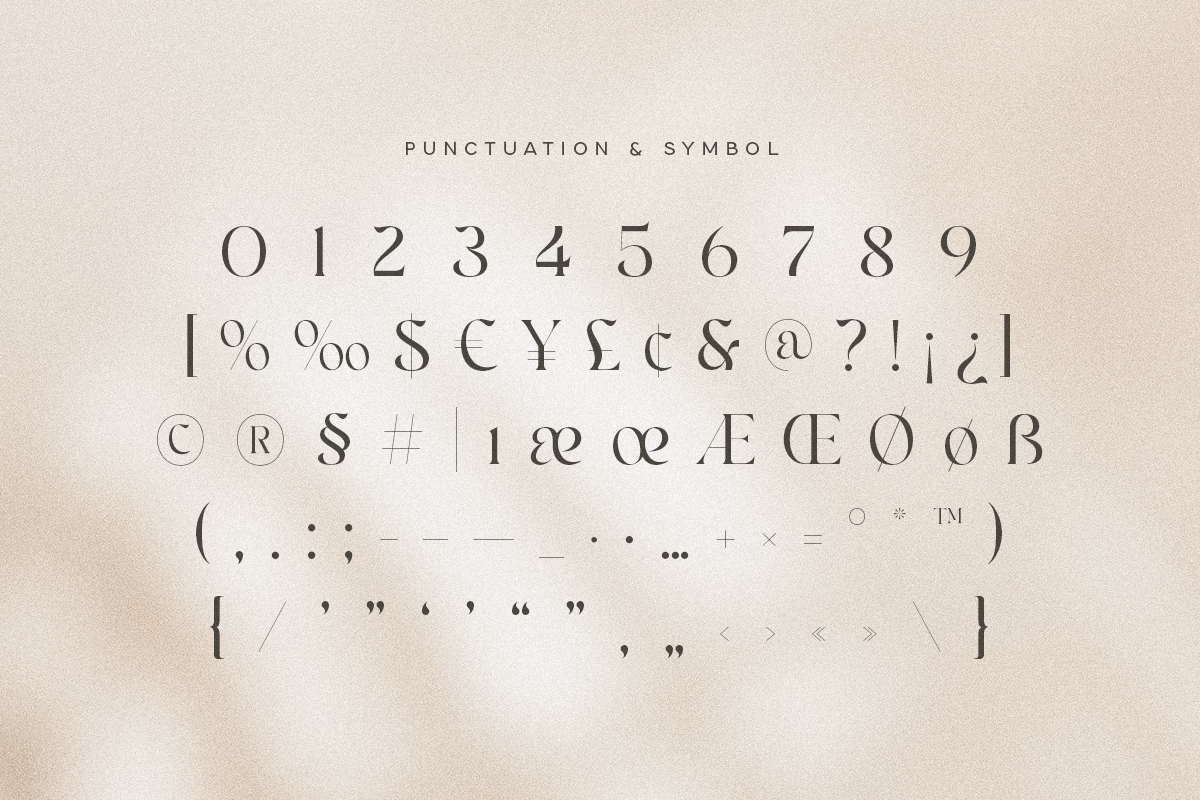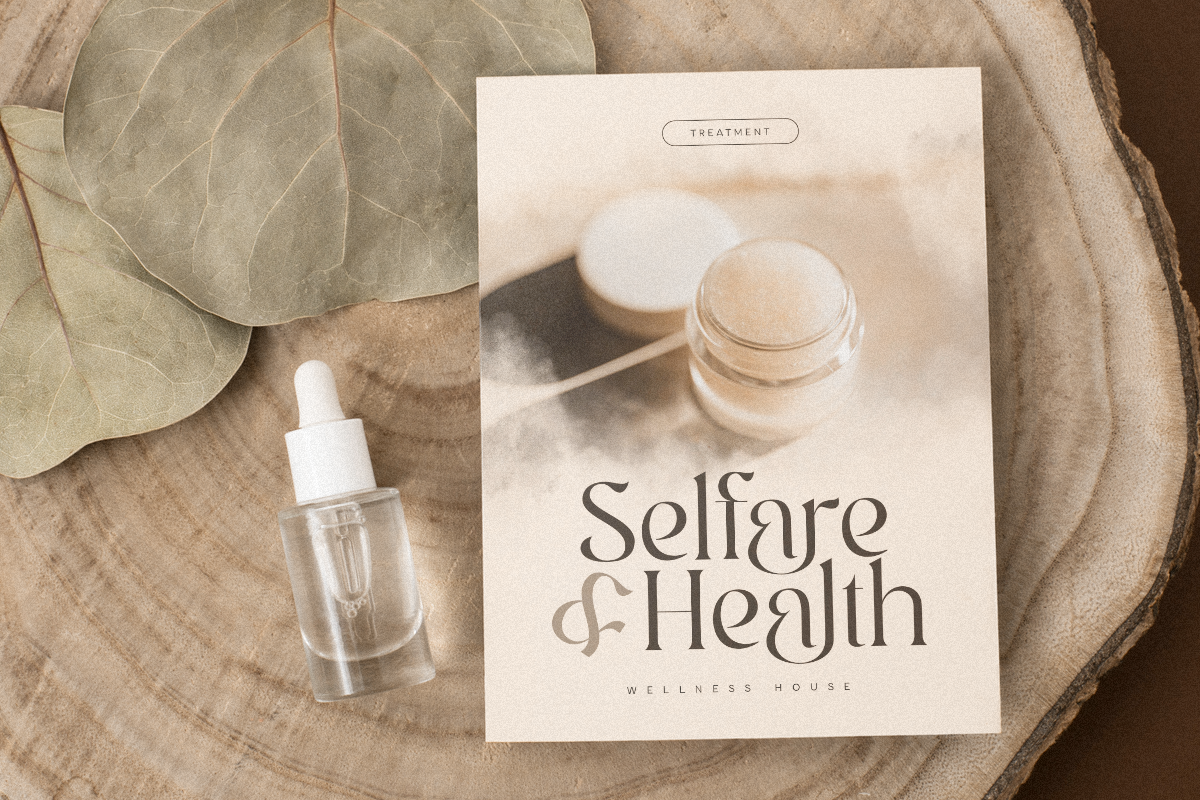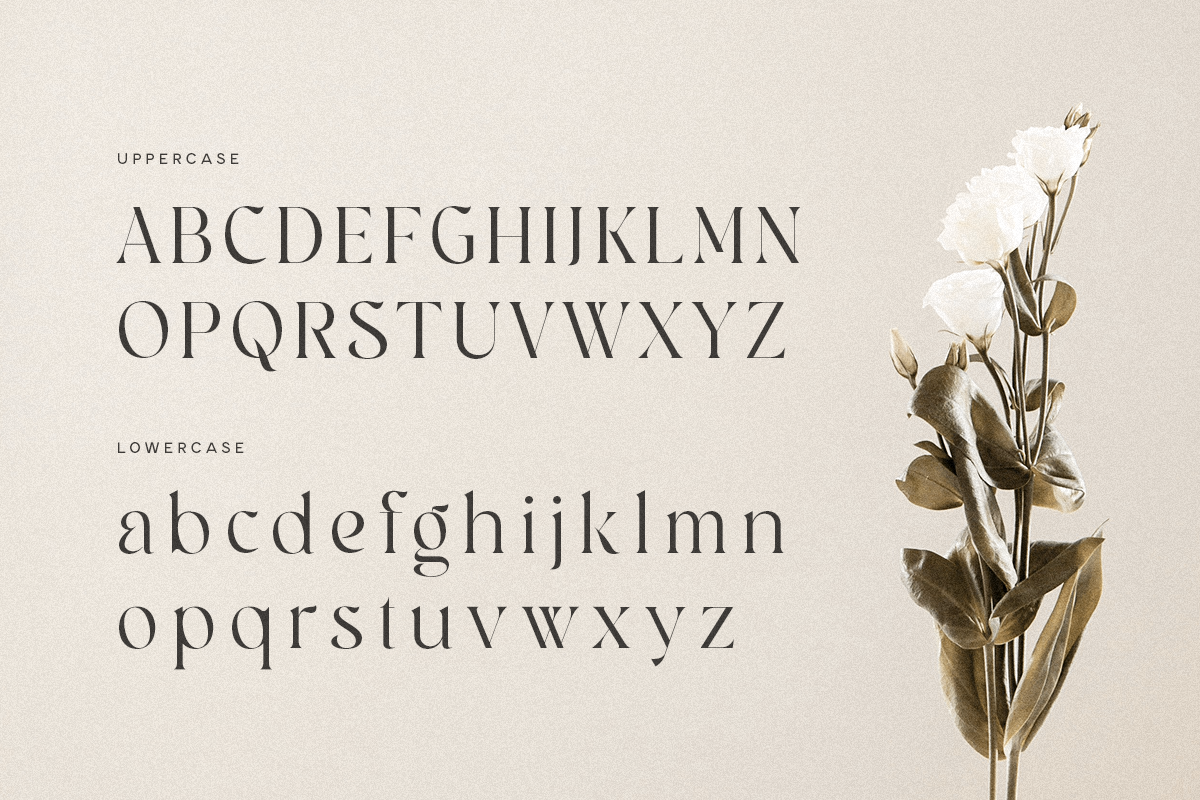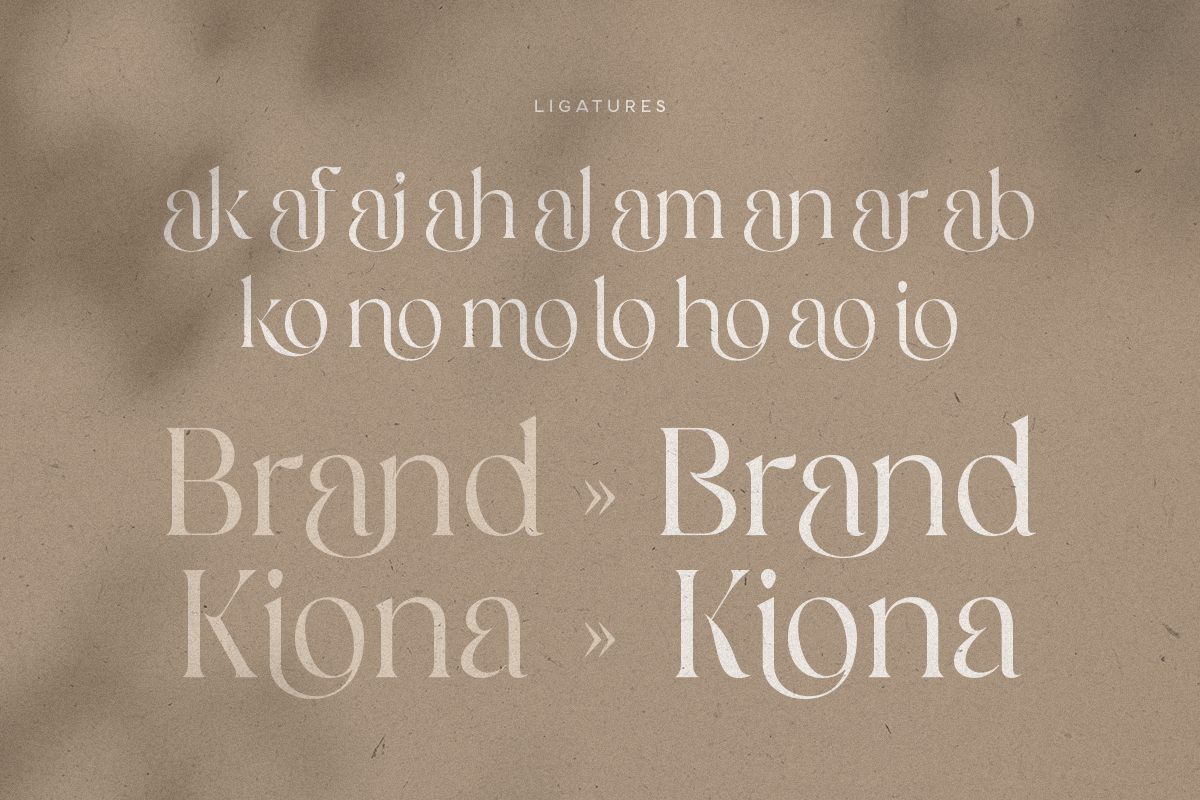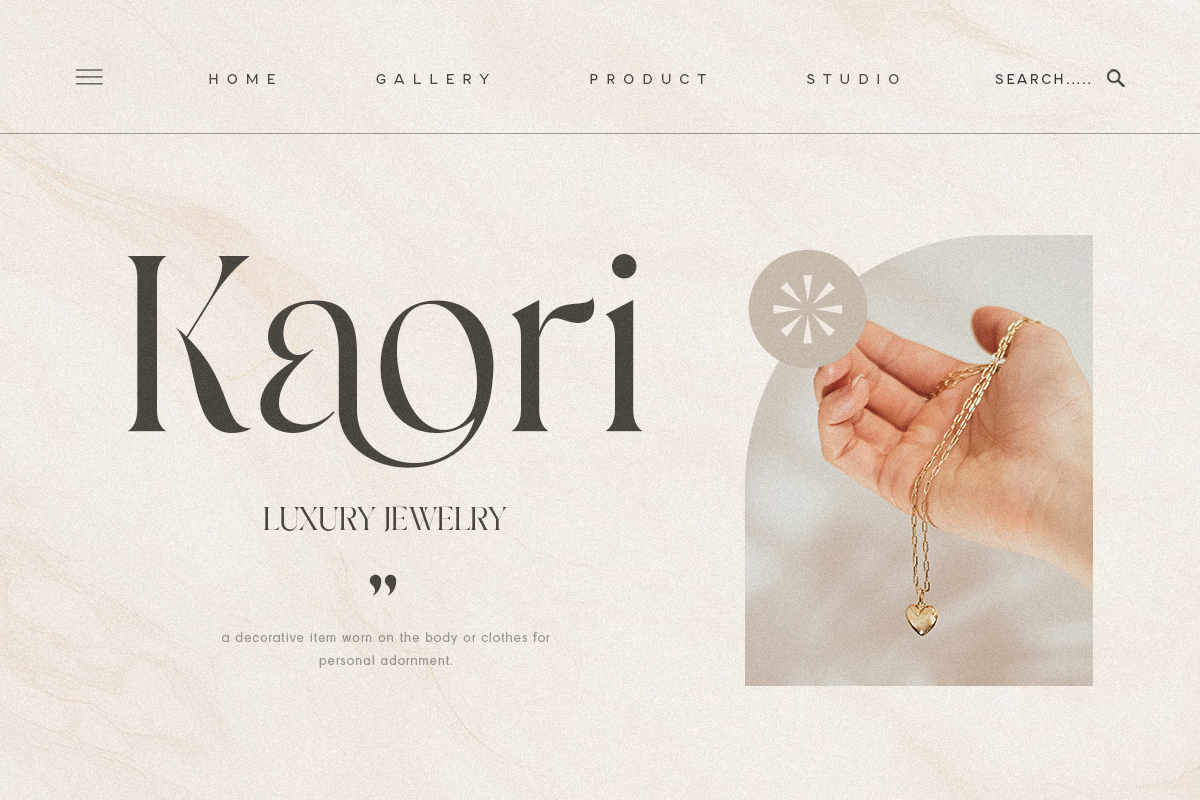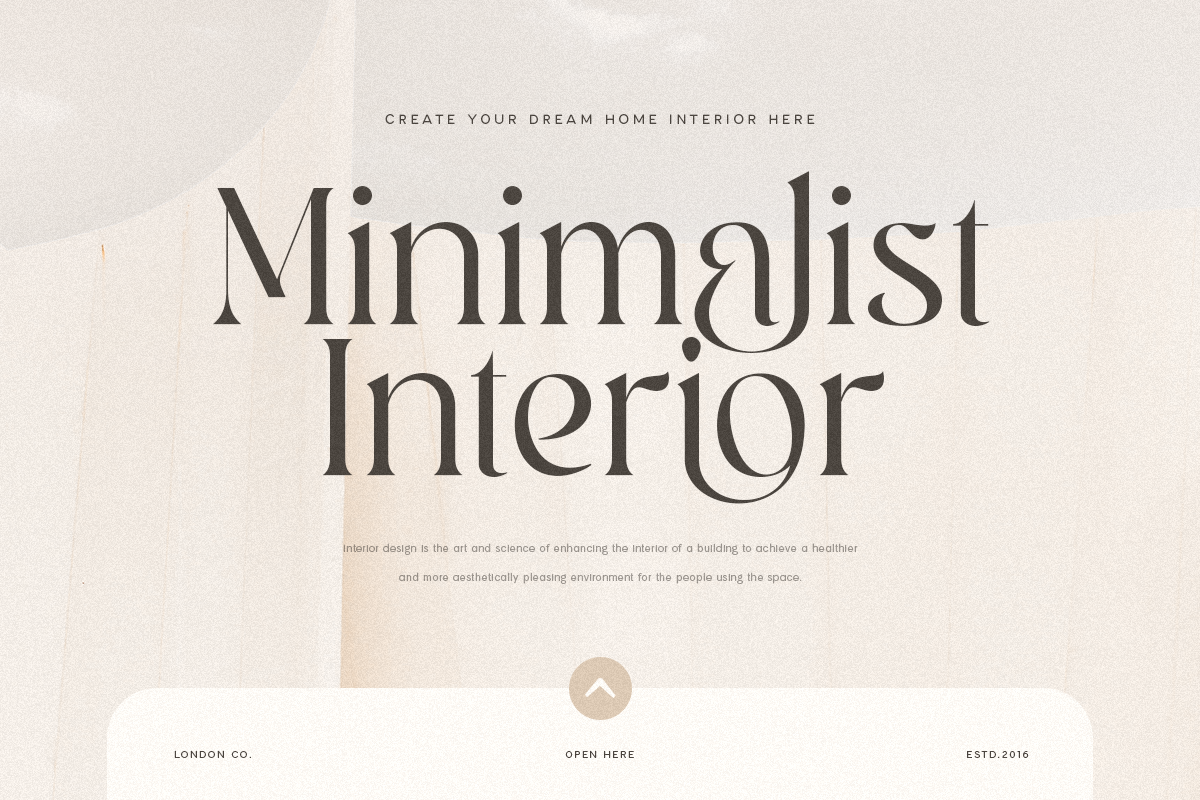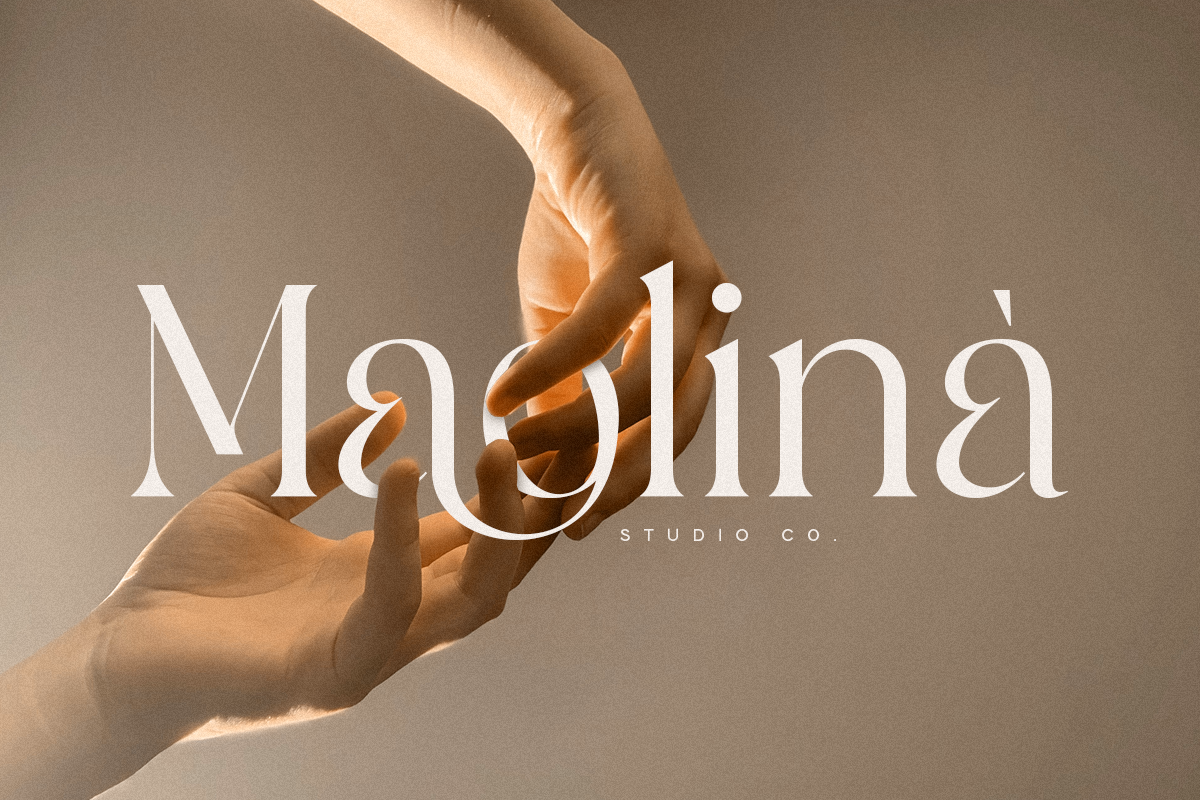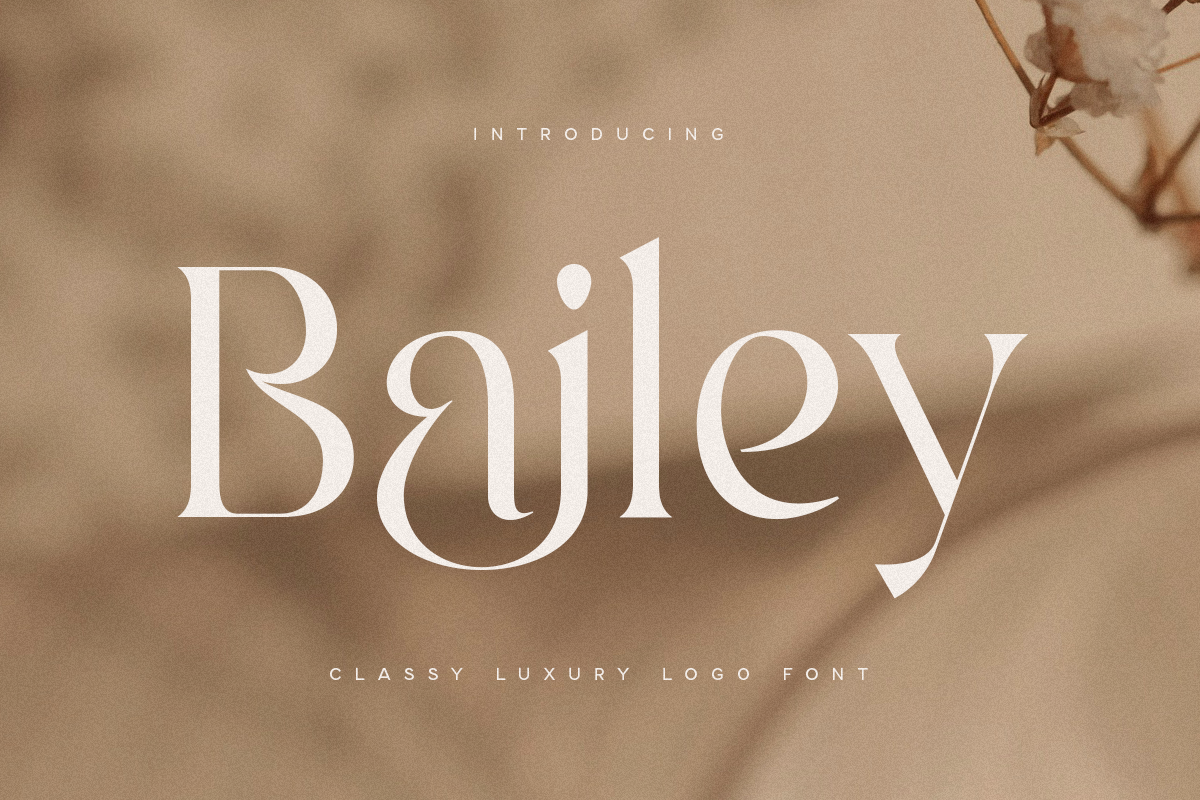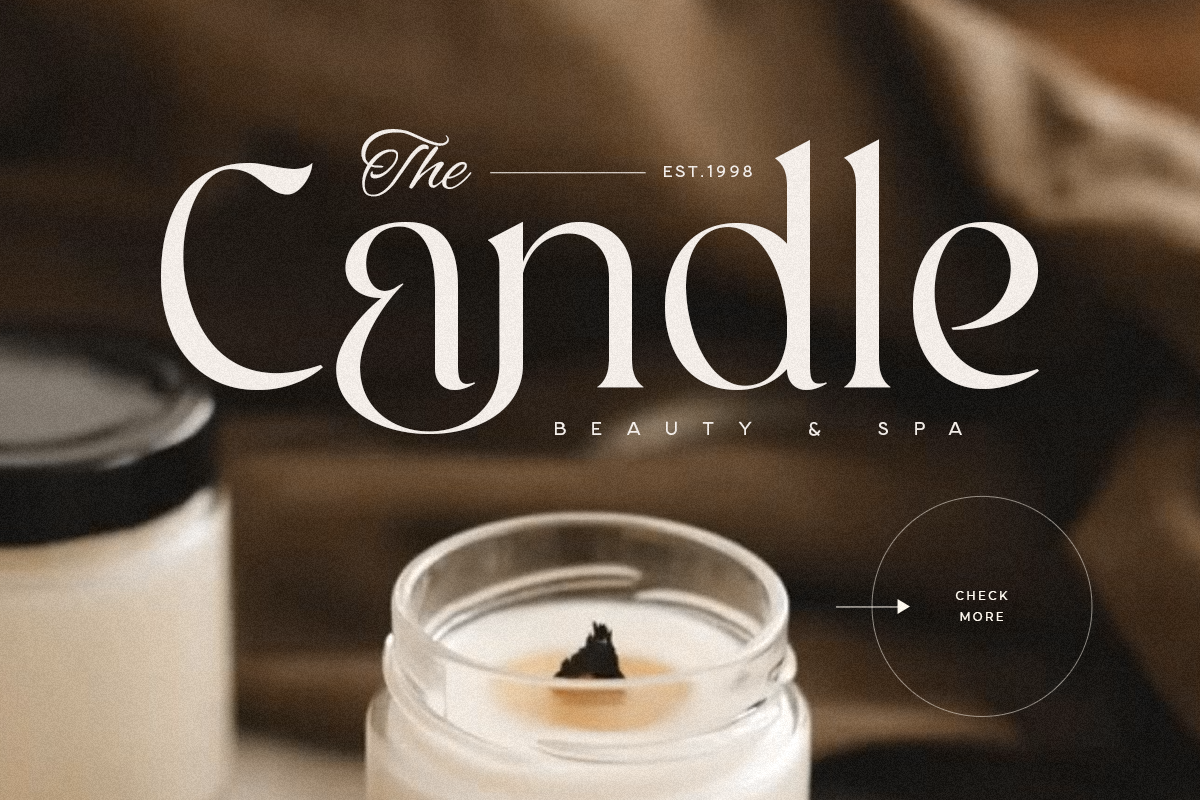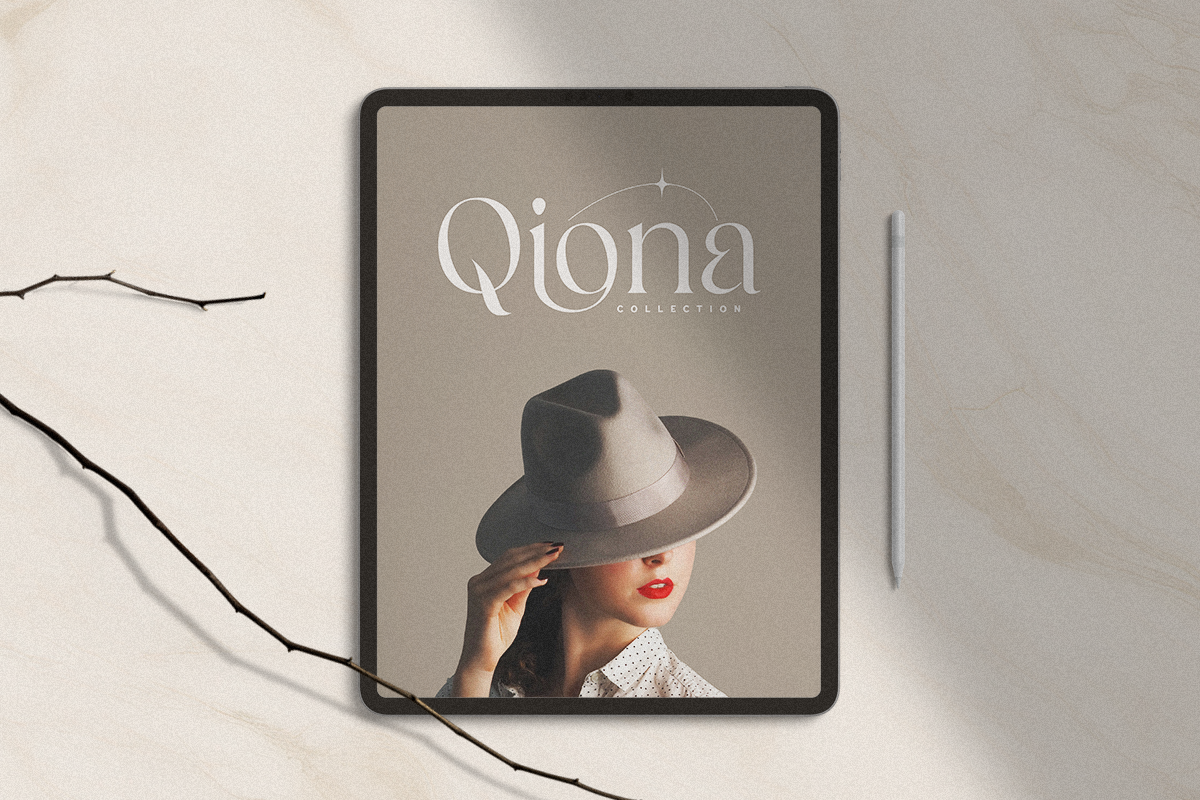
Bailey - Classy Luxury Logo Font
Introducing Bailey, the epitome of luxury and cinematic elegance in a serif font. Perfectly crafted for sophisticated and high-end designs, Bailey brings a touch of class and refinement to any project.
Bailey Font Features:
- Luxury Design: A luxurious serif style ideal for upscale and sophisticated projects.
- Cinematic Appeal: Perfect for film titles, movie posters, and dramatic visual content.
- Versatile Usage: Suitable for branding, editorial layouts, elegant invitations, and more.
Elevate your designs with Bailey, the luxury serif font that exudes sophistication and style. Whether for high-end branding, cinematic projects, or elegant typography, Bailey adds a timeless and refined touch to your work. Make a statement with Bailey and let your designs shine with unparalleled elegance.